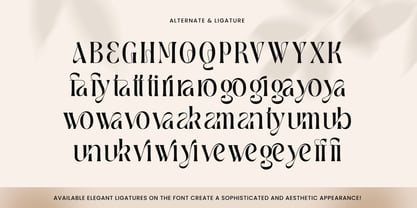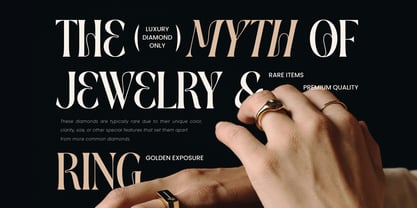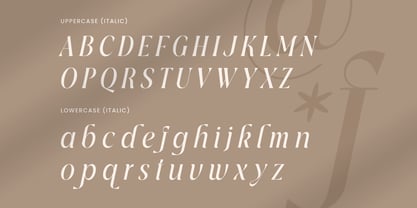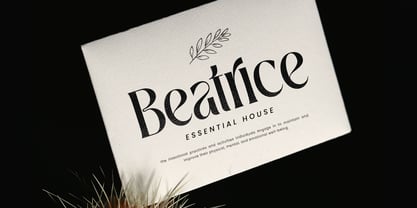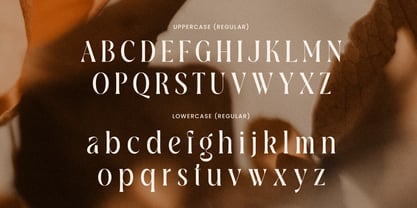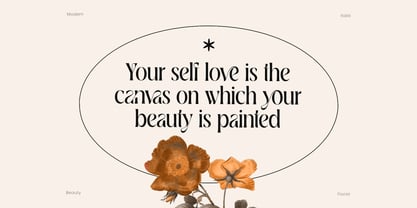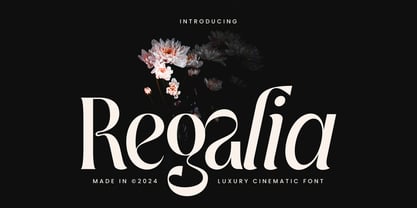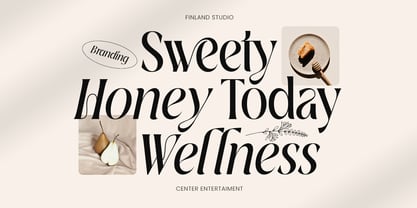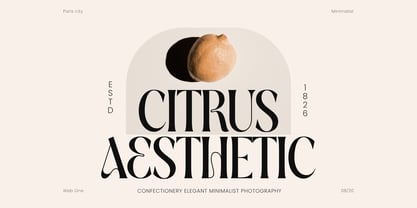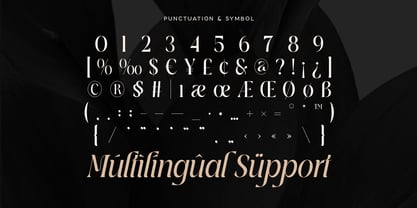
Regalia SS
por Sensatype Studio
A família de fontes Regalia SS foi desenhada por Zamroni Hamzah e publicada pela Sensatype Studio. Regalia SS contém 2 estilos e opções de pacote familiar. Saiba mais sobre esta família
Regalia - Luxury Cinematic Font
Regalia is a luxury cinematic font that brings a touch of grandeur and elegance to your design projects. With its refined curves and bold yet sophisticated letterforms, it’s the perfect choice for creating high-end logos, movie titles, or branding materials for exclusive products. Regalia’s luxurious style elevates any project, making it ideal for fashion, jewelry, or upscale service branding.
Inspired by cinematic elegance, Regalia was crafted to convey a sense of majesty and timelessness. Each character is designed with precision, ensuring your designs stand out with a professional and polished look. Whether you're designing a title sequence for a film or crafting a logo for a premium brand, Regalia’s bold presence adds weight and drama to your work. With its balance of luxury and cinematic flair, Regalia is versatile enough to work in both large and small formats. Elevate your designs with Regalia’s classic beauty and modern sophistication, bringing a sense of regality to your next project.
Regalia Luxury Cinematic Font Features:
• Available with Regular & Italic Version
• Luxury Ligature Characters Ready
• Punctuation, Number, and Symbol
• Uppercase and Lowercase
• Multilingual Support
• Opentype Features
Designers: Zamroni Hamzah
Fundição: Sensatype Studio